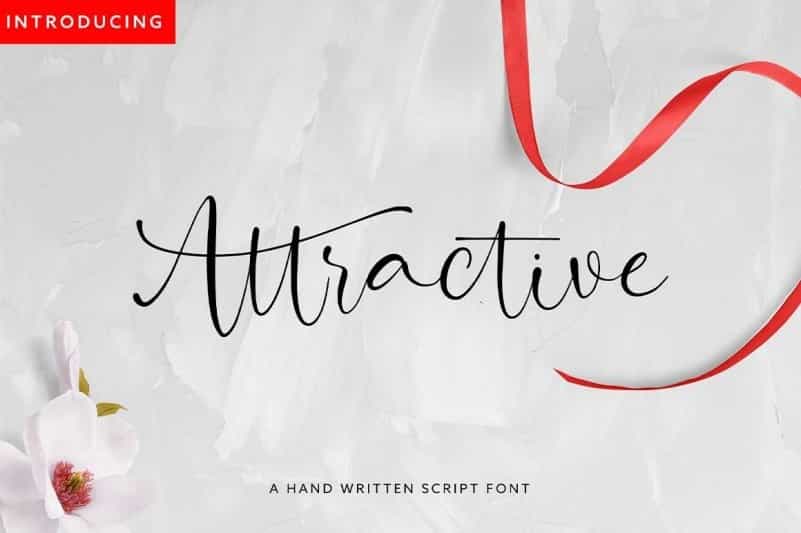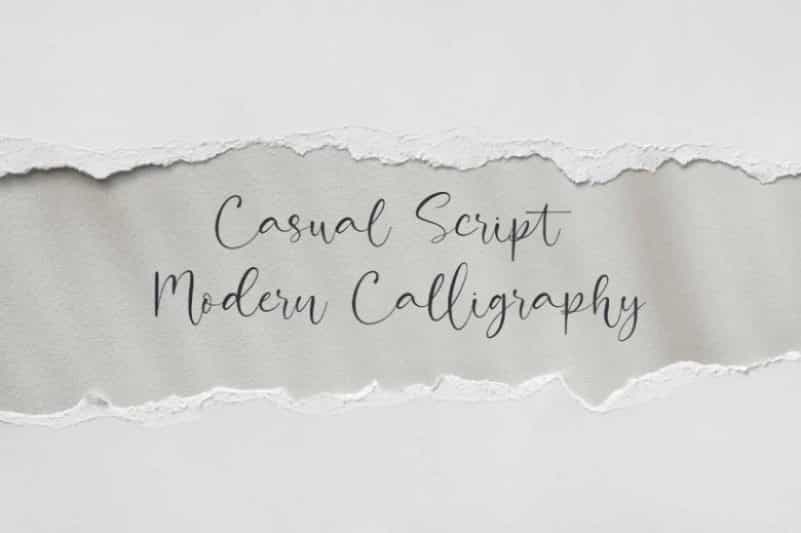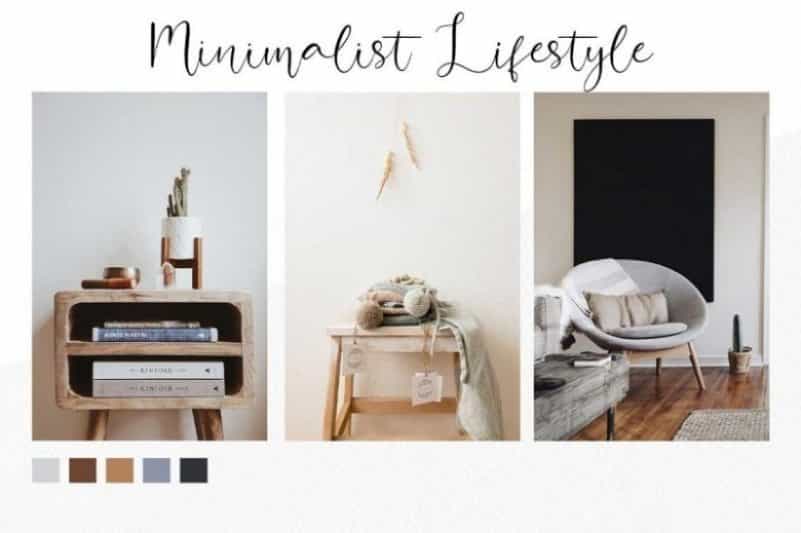
Attractive is a stylish handwriting script font that is elegant and fashionable. It works seamlessly with various fonts, fitting into all sorts of styles. Perfect for greeting cards, branding design, business cards, quotes, posters etc.